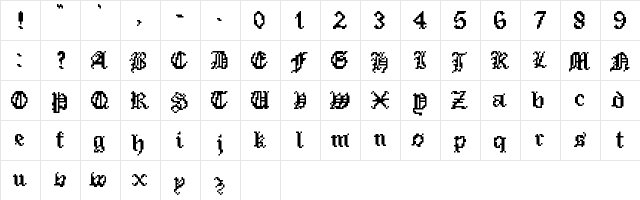
Pixeled English Font Regular
Design Context for Pixeled English Font Typeface
Pixeled English Font celebrates the constraints of early digital type, turning pixel geometry into a distinctive and immediately recognisable style.
A natural choice for retro game titles, chiptune music branding, 8-bit UI, and digital nostalgia projects.
Pro Tip: Pair Pixeled English Font with flat colour palettes and simple geometric UI elements to reinforce its digital aesthetic.